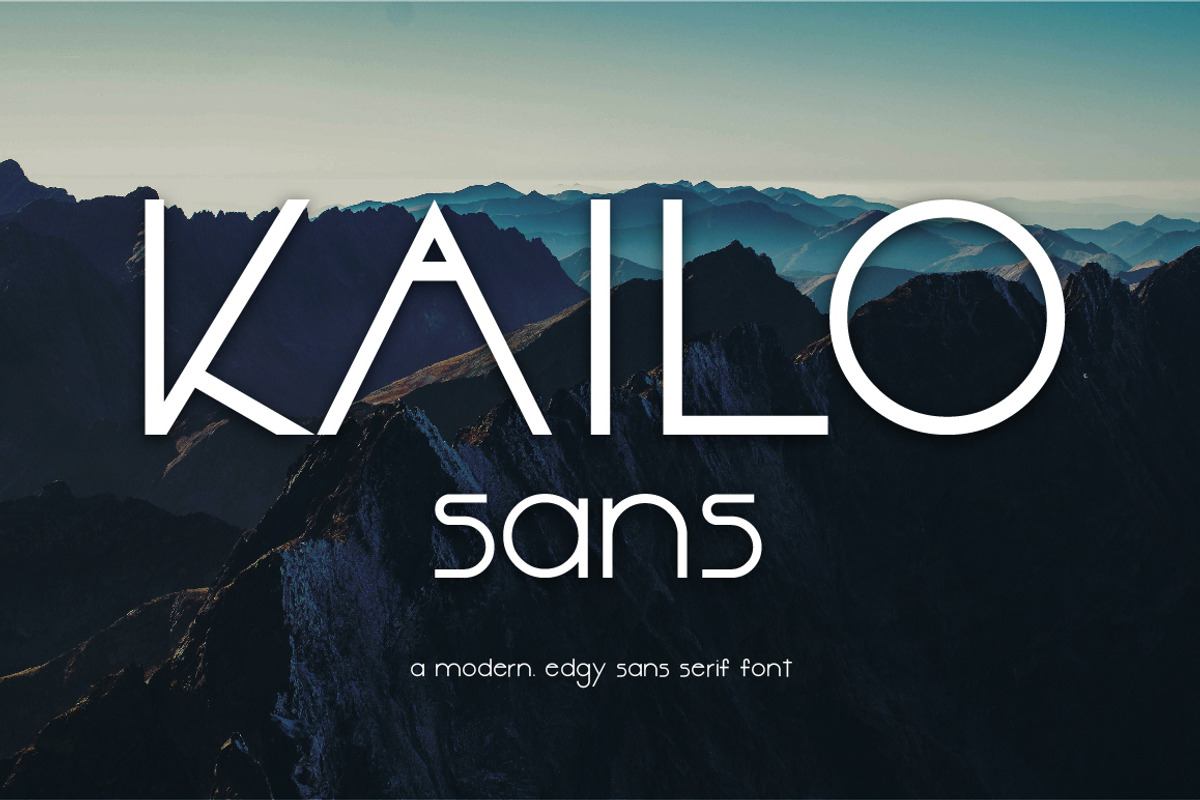
Kailo Sans Font Free Download is a modern, clean, and versatile sans-serif typeface designed for clarity and readability. Its simple, geometric shapes and balanced letterforms make it perfect for a wide range of design projects, including branding, web design, editorial layouts, and corporate materials.
The font’s minimalistic style brings a contemporary feel to your typography, making it ideal for both digital and print applications. Whether you’re working on a modern website, a professional presentation, or minimalist branding, Kailo Sans provides a stylish, polished look.